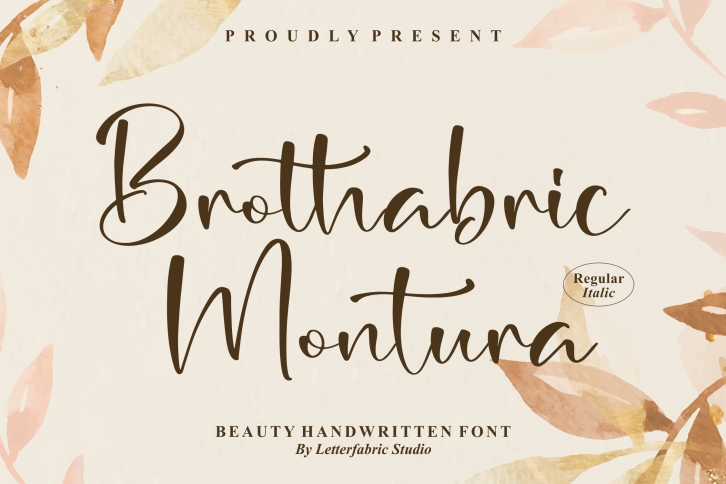
Brothabric Montura is a chic and trendy handwritten font. Whether you’re looking for fonts for Instagram or calligraphy scripts for DIY projects, this font will turn any creative idea into a true piece of art!